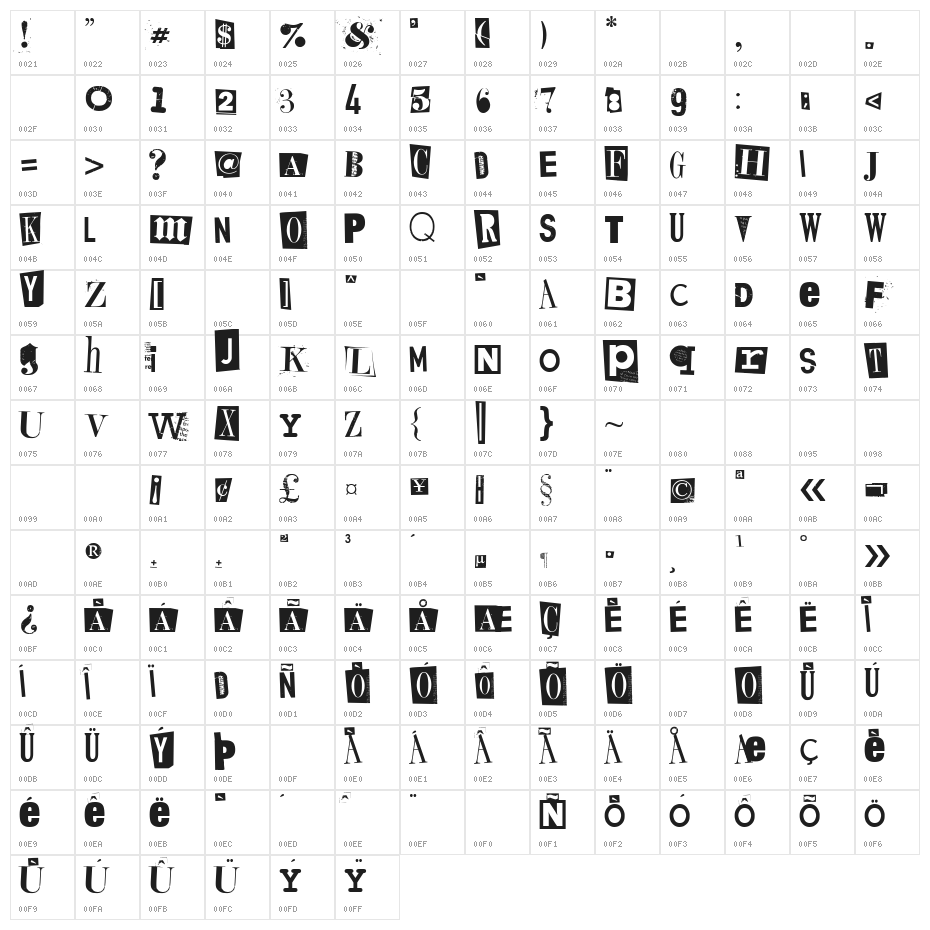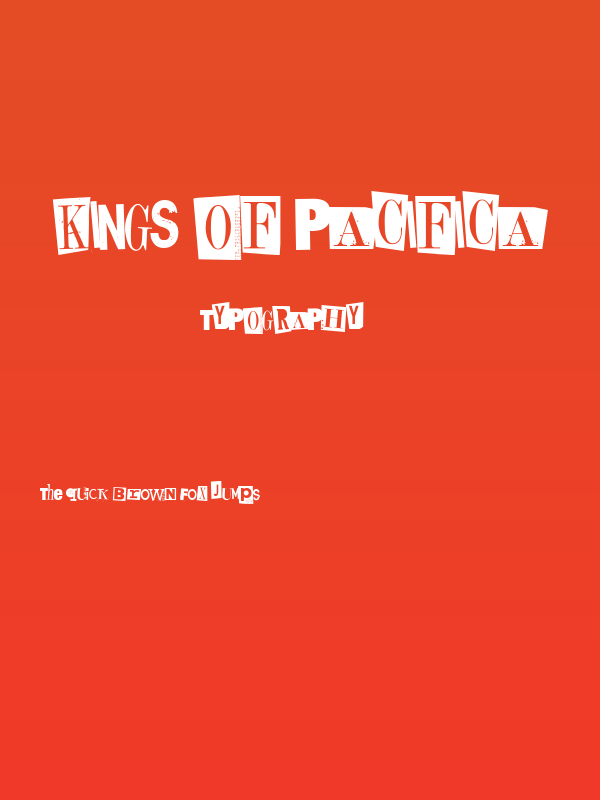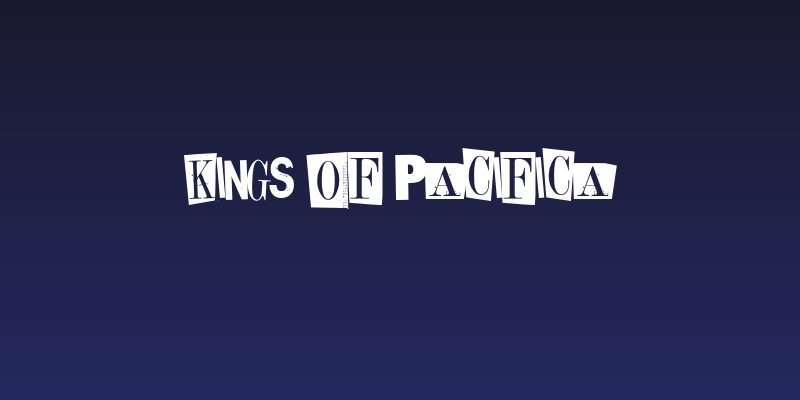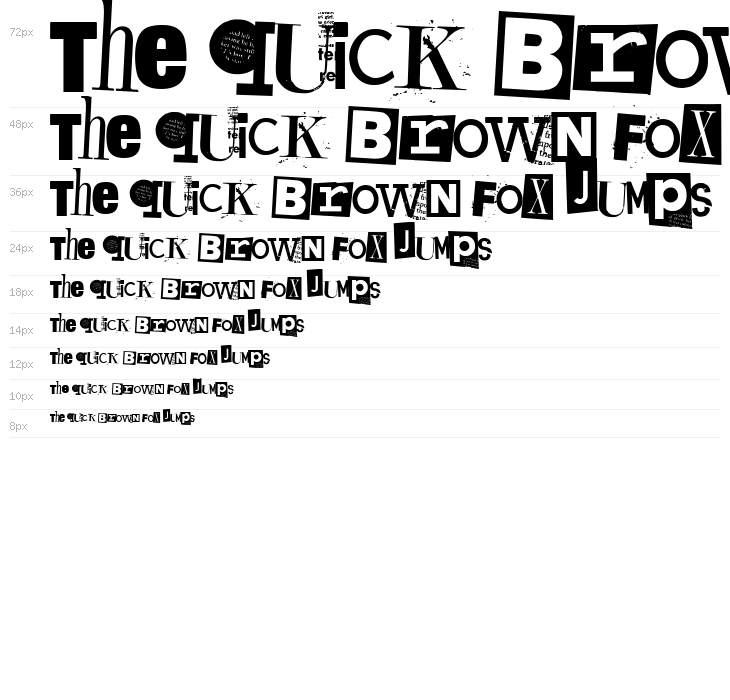
Kings of Pacifica Font
Kings of Pacifica Description
This font features a highly eclectic and artistic style, reminiscent of a ransom note or collage. Each character is uniquely designed, with varying shapes, sizes, and textures, creating a dynamic and unpredictable visual experience. The letters are bold and attention-grabbing, often incorporating distressed or grunge elements that add a sense of edginess and rebellion. The mix of uppercase and lowercase letters, along with numbers and special characters, maintains a consistent theme of diversity and creativity. This font is perfect for projects that require a strong visual impact and a sense of individuality.
| Proposed Projects | Ideal for album covers, posters, edgy branding, and any project needing a bold, artistic statement. |